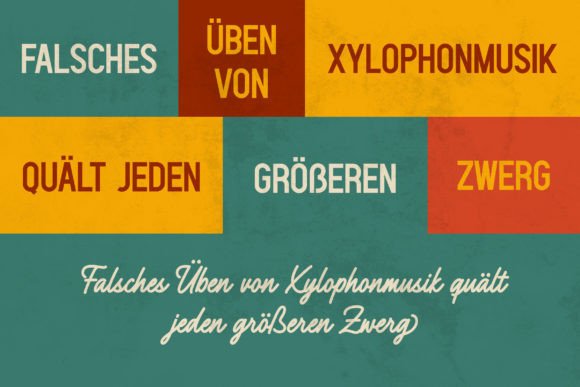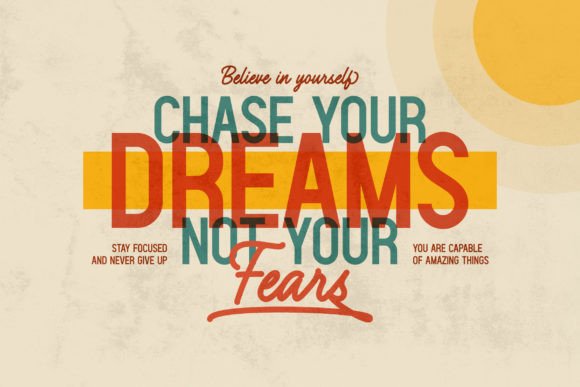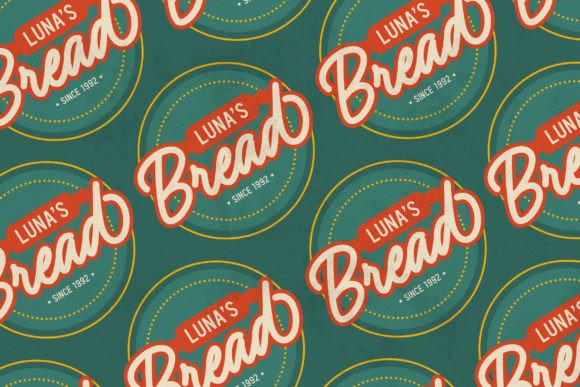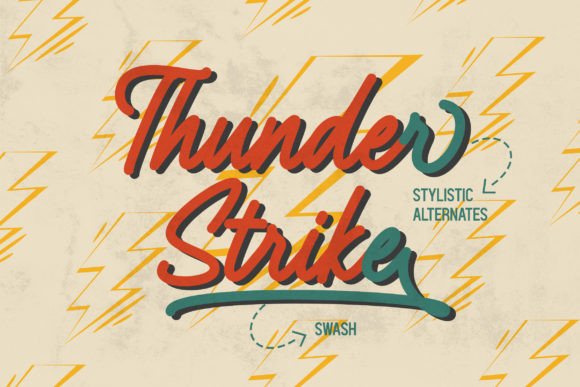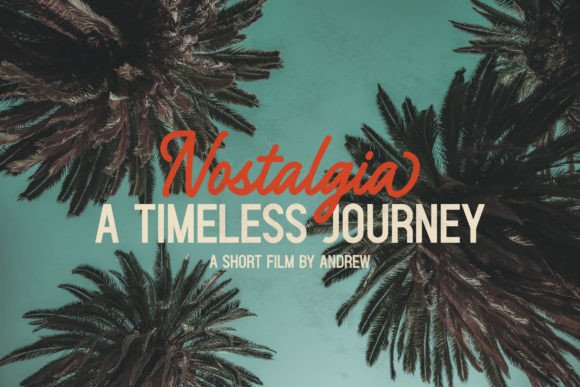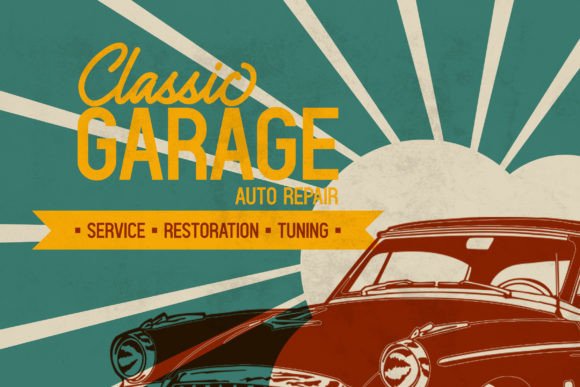
The Perfect Blend of Classic and Modern: Introducing Antiquel Font
Do you remember the feeling of rummaging through your grandparents’ attic, uncovering old family heirlooms and forgotten treasures? It’s a moment that sparks creativity and inspires us to bring a piece of the past into our present-day designs. For designers, this nostalgia is a driving force behind creating timeless and unique visual identities.
Enter the Antiquel Font Duo, a harmonious marriage of clean, modern all caps sans-serif style and classic script touches. This versatile font is the perfect companion for crafting logos, branding materials, labels, posters, titles, packaging, and quotes with a retro or modern flair. With the Antiquel Font, designers can tap into the nostalgia of the past while still achieving a sleek, contemporary look.
Whether you’re working on a branding project or creating a memorable visual identity, the Antiquel Font is a valuable addition to your design arsenal. Its unique blend of classic and modern elements makes it an essential tool for designers seeking to create authentic and captivating designs.
Antiquel Font Key Features
- Unique Characteristics: Antiquel features a unique, distressed aesthetic with subtle texture and imperfections, giving it a vintage or antique feel.
Designer Review: Antiquel Font
Overall, I think the Antiquel font is a solid addition to any typographer’s toolkit. ✨ Here are some things that work well:
- Legibility: The font is highly legible, making it perfect for body text and long passages.
- Vintage charm: The Antiquel font has a unique, vintage feel that’s perfect for projects that need a touch of nostalgia.
- Font pairing: The font pairs well with a variety of other fonts, making it easy to create visually appealing combinations.
However, like any font, the Antiquel font has its limitations. ⚠️ Here are some things to be aware of:
- Lack of versatility: The font’s unique style may not be suitable for projects that require a more modern or corporate feel.
- Limited language support: The font may not support all languages, which could be a problem for international projects.
- Not ideal for small text: The font’s vintage style can make small text difficult to read.
Overall, I’d give the Antiquel font 4 out of 5 stars. It’s a great addition to any typographer’s toolkit, but it’s not suitable for every project. Use it wisely, and you’ll be rewarded with beautiful, vintage-inspired typography.
Practical Application Guide for Antiquel Font
Antiquel Font is ideal for creating vintage-inspired designs, such as:
- Old-fashioned advertisements
- Classic book covers
- Antique-themed websites and blogs
Remember to pair the Antiquel Font with other vintage-inspired elements, such as distressed textures and classic colors, to create a cohesive and nostalgic look.
Alternatives to Antiqua Font
Playfair Display is a high-end serif font that exudes elegance and sophistication. It’s ideal for use in titles, headings, and other prominent text elements where a sense of luxury and refinement is desired. In comparison to Antiqua Font, Playfair Display has a more ornate and elaborate design, making it suitable for use in high-end branding, magazines, and other publications.
2. Georgia Font
Georgia is a serif font that is designed for readability on screens. It’s a clear and legible font that works well in body text and is suitable for use in long-form content such as articles, essays, and books. Compared to Antiqua Font, Georgia is more straightforward and lacks the ornate details, making it a better choice for use in body text where clarity is paramount.